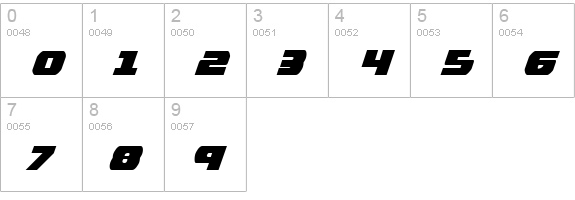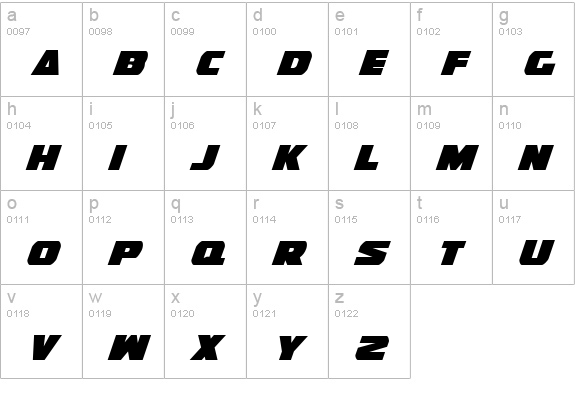
Guardian Condensed Italic is a distinctive, condensed-width, italic variant in the Guardian typeface family \xE2\x80\x94 well suited to design and typography projects.
Guardian Condensed Italic font is a stylish and versatile typeface that adds a touch of elegance to any design. Its sleek and modern look makes it perfect for various projects, from branding to editorial design. The italicized version of this font gives a dynamic and sophisticated feel to text, making it stand out in a subtle yet impactful way. Best of all, Guardian Condensed Italic font is available for free download at FontsMarket.com. Whether you're a designer looking to add a unique flair to your creations or a business owner wanting to elevate your branding, this font is a fantastic choice. Don't miss the opportunity to enhance your projects with this beautiful and freely accessible typeface.